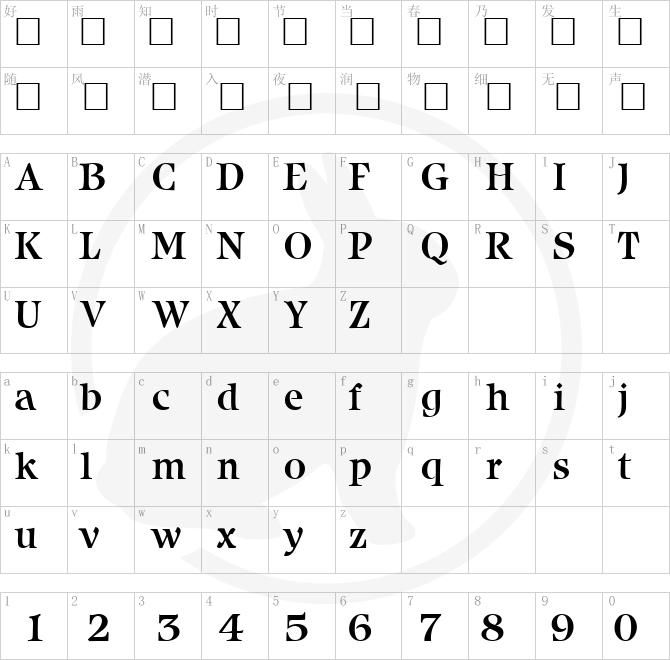
- Font Name:IcebergMedium
IcebergMedium-Regular.ttf is a very beautiful artistic font, IcebergMedium-Regular.ttf is widely used in the design and printing of various books and pictures,IcebergMedium-Regular.ttf has a strong visual impact,IcebergMedium-Regular.ttf is a commonly used font in newspapers, magazines and books, and is used in posters, e-commerce Poster design, store design, logo design, font design and other fields.IcebergMedium-Regular.